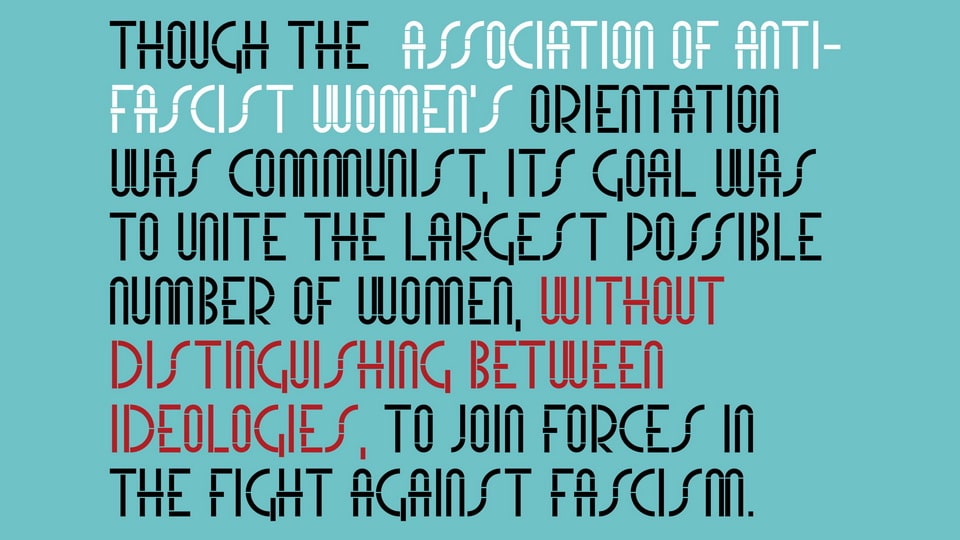
Bilbao AMA is a lovely and rather severe stencil font consisting of thin geometrical rectangles and gentle 90 degree curves. Modular, de/constructed, fonts like this were fairly common in Avant Garde art publications from this time, but it was surprising to see one pop up in a political publication.
This font looks like it might have been created on a composing tray, built up by putting together smaller pieces of cast metal type. This came from the inner pages of the Bilbao AMA magazine–Mujeres: Organo del Comité Mujeres Contra la Guerra Imperialista y el Fascismo.